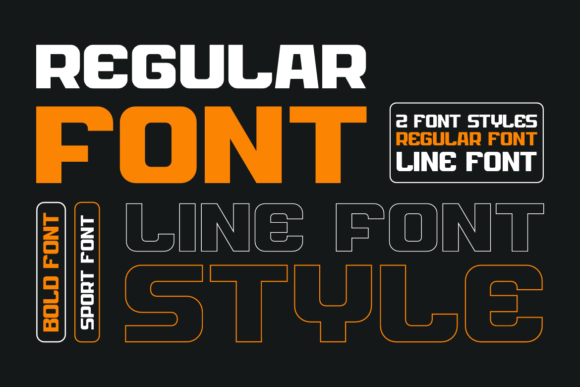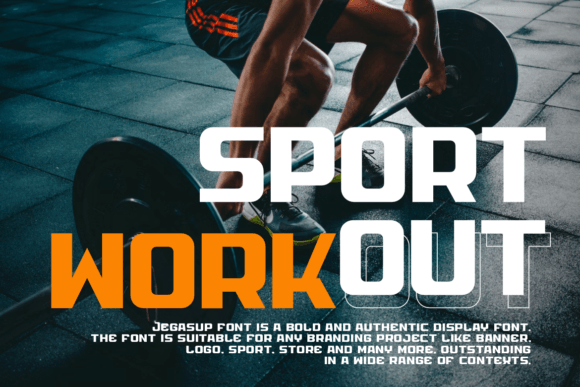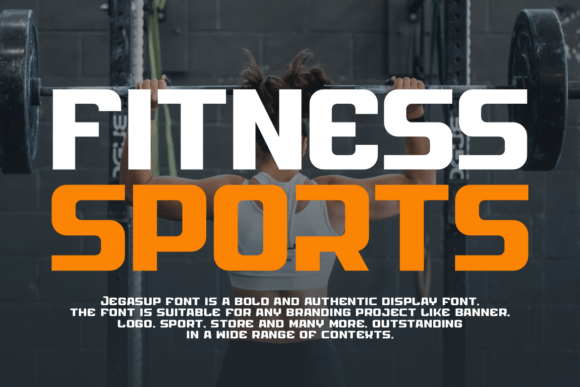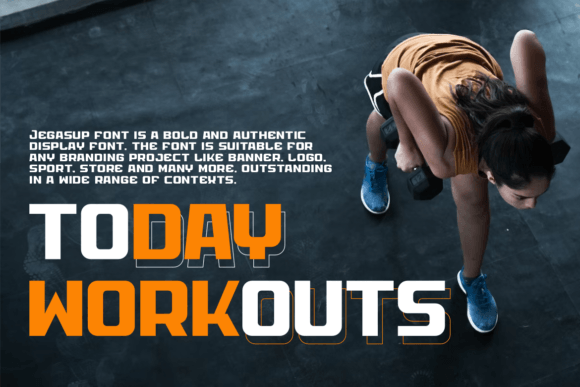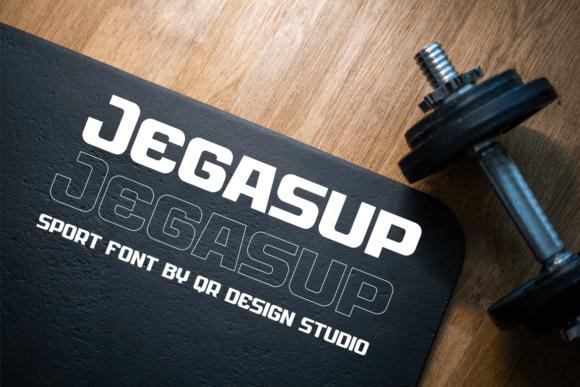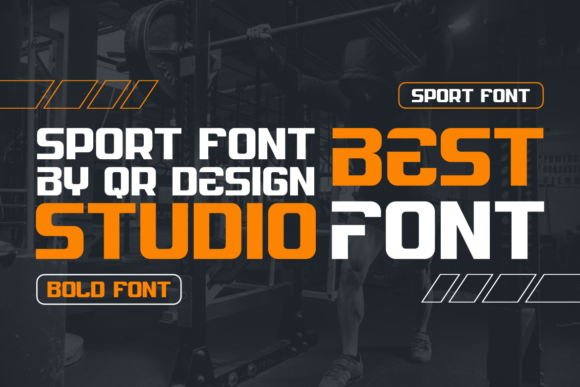
Introduction to Jegasup Font
Have you ever been stuck on a creative project, desperately searching for the perfect font to bring your vision to life? That’s exactly what happened to me when I was working on a branding project for a sports team. I wanted a font that exuded energy, confidence, and a touch of boldness. After hours of browsing through design resources, I stumbled upon the Jegasup Font – a game-changer that elevated my entire design.
The Jegasup Font is a high-quality, versatile sans serif font that’s perfect for any creative project. With its free download option and transparent background, it’s a design resource that’s hard to resist. Whether you’re working on a logo, web design, social media, or flyers, this font is sure to make your project stand out.
As a designer, having access to valuable resources like the Jegasup Font can make all the difference in bringing your ideas to life. It’s a valuable addition to any design toolkit, and I’m excited to share more about its features and benefits in this article.
Key Features of Jegasup Font
- High-quality design: Jegasup Font is a unique and stylish font perfect for creative projects.
- Unique characteristics: Jegasup Font features a bold and playful design, with intricate details and textures, making it perfect for creative projects and designs that require a high level of visual interest.
- Perfect for creative projects: This font is ideal for designers, artists, and writers who need a high-quality, unique font for their creative projects, such as logos, posters, and book covers.
Honest Review: Jegasup Font
I recently had the chance to work with the Jegasup Font, and I have to say, I was quite impressed. As a designer, I’m always on the lookout for high-quality fonts to enhance my creative projects.
- ✨ High-quality design: The Jegasup Font has a clean and modern look that works well for various design applications.
However, I did encounter a few limitations. ⚠️ The font may not be as versatile as some other fonts, and it may not be suitable for all design projects. Additionally, the font’s file size is a bit larger than I would prefer, which could impact website loading times.
Overall, I think the Jegasup Font is a solid addition to any designer’s toolkit. While it may have some limitations, its high-quality design and free download make it a valuable resource for creative projects.
The Jegasup Font is commonly used in graphic design, digital art, and creative projects. It’s a great choice for designers who want a high quality font with a transparent background. The font can be used in a variety of contexts, from logos and branding to presentations and documents.